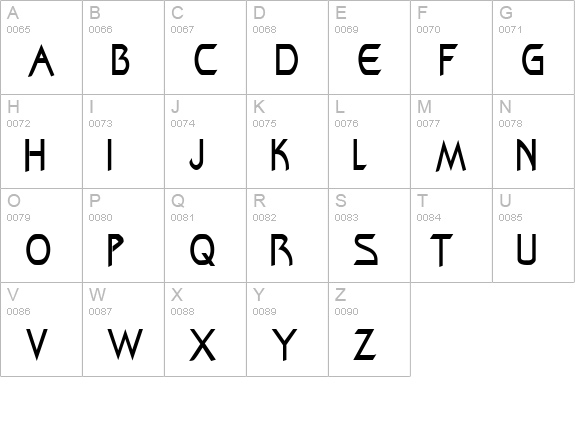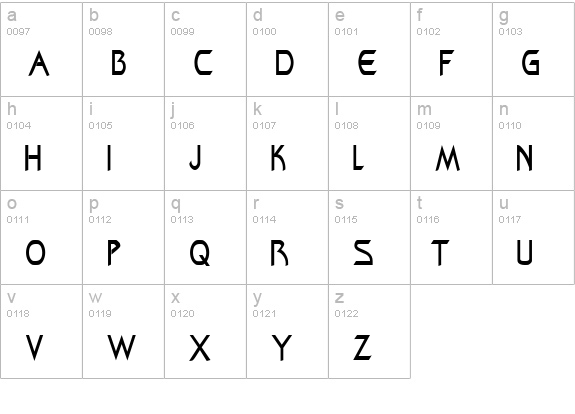
ZenonCondensed Font Details
ZenonCondensed is a sleek and modern condensed font that exudes elegance and sophistication. With its clean lines and minimalistic design, this font is perfect for a wide range of design projects, from branding to editorial design. Its condensed style allows for efficient use of space without sacrificing readability or style. What sets ZenonCondensed apart is that it is not only visually appealing, but it is also available for free download at FontsMarket.com. This means that you can elevate your design projects with this stunning font without breaking the bank. Whether you're working on a logo, a website, or a poster, ZenonCondensed is sure to make a bold statement and leave a lasting impression. Download it for free today and see the difference it can make in your designs!